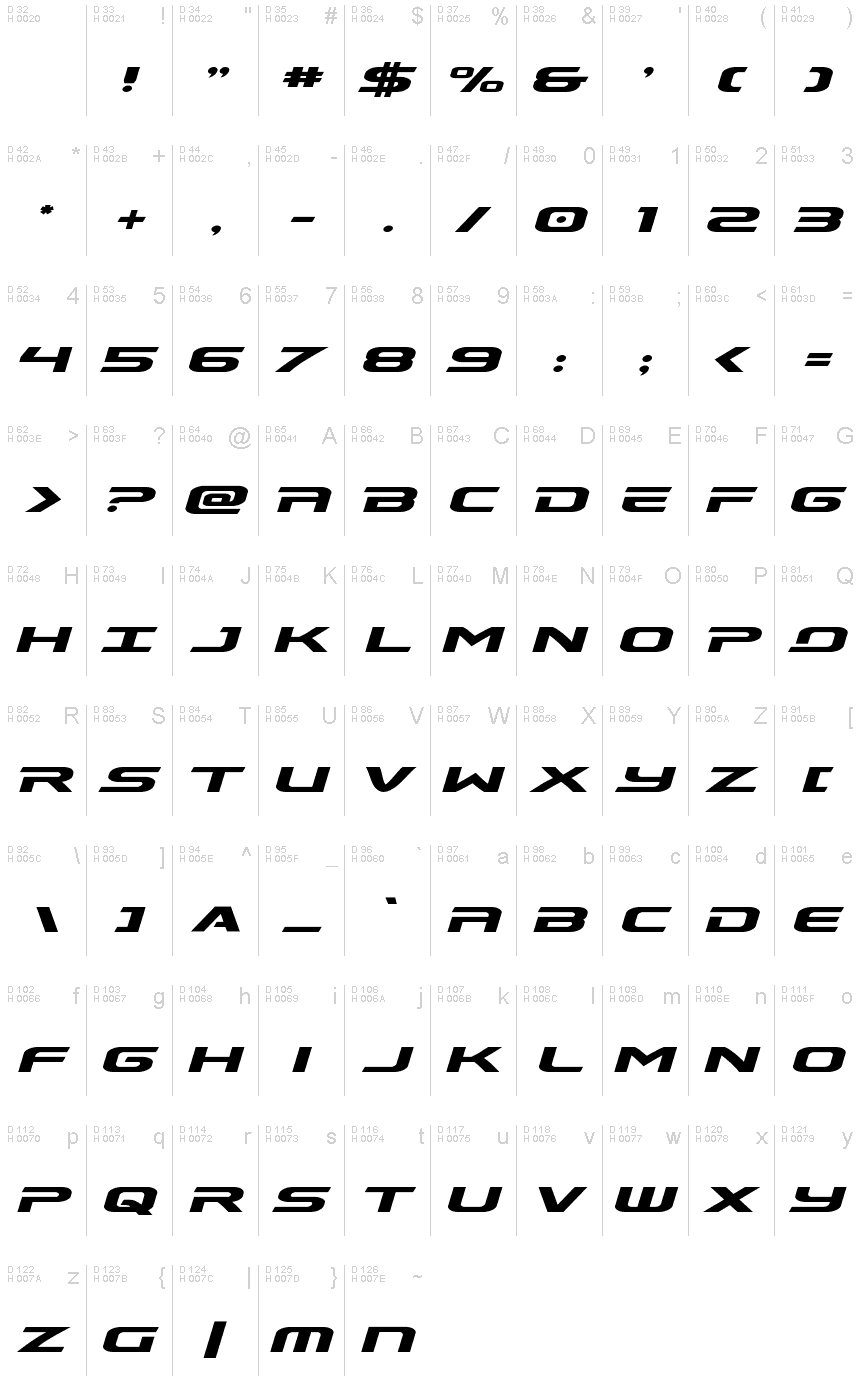
Drius Expanded is a bold and ultra-expanded display font designed by Iconian Fonts. With its futuristic style, this font is perfect for projects that aim to capture the essence of modernity and innovation.
Its wide width adds a touch of boldness and makes it ideal for headlines, logos, and posters that require attention-grabbing typography. Whether you're working on a sci-fi movie poster or a technology blog header, Drius Expanded will give your design a sleek and contemporary look that stands out from the crowd.
Drius Expanded